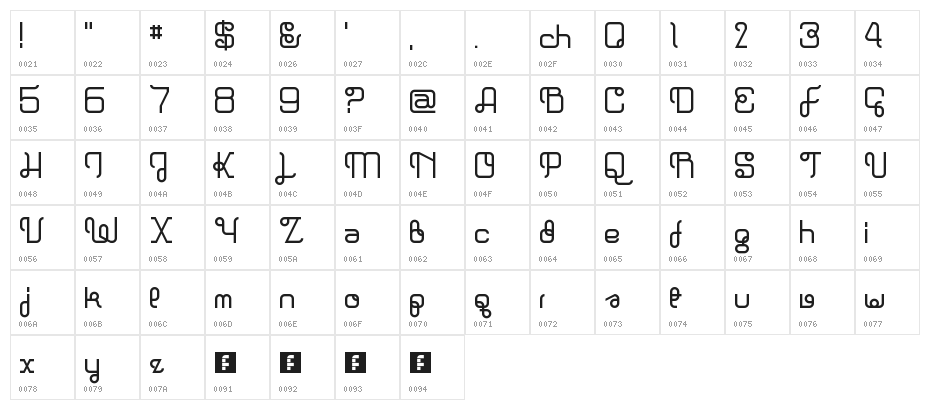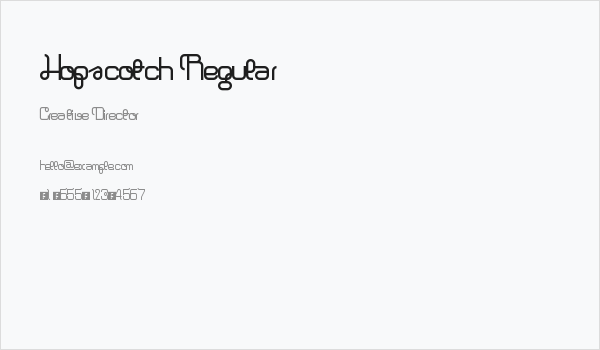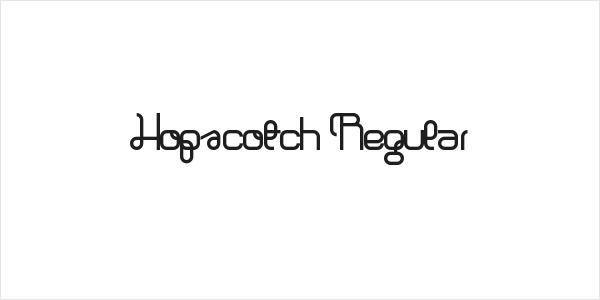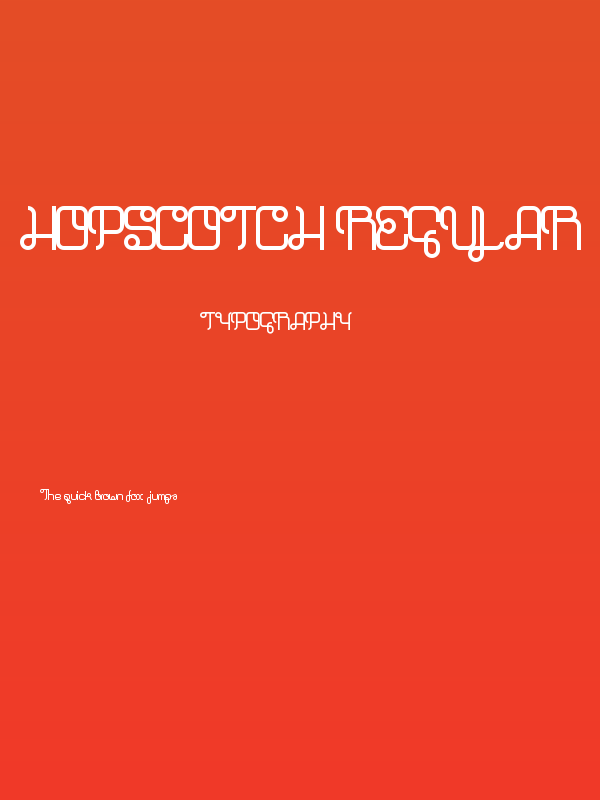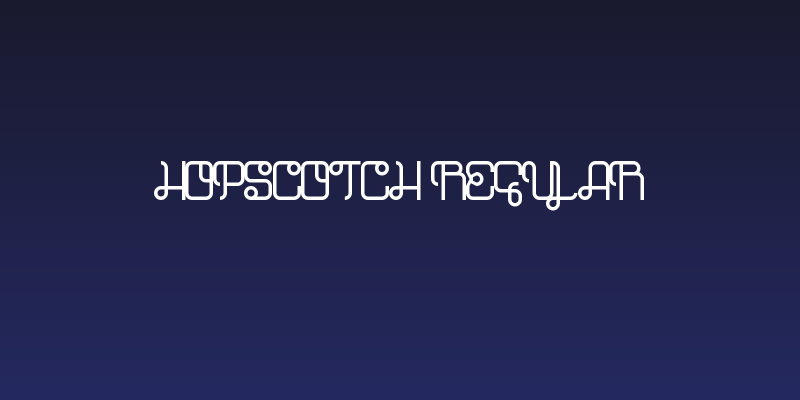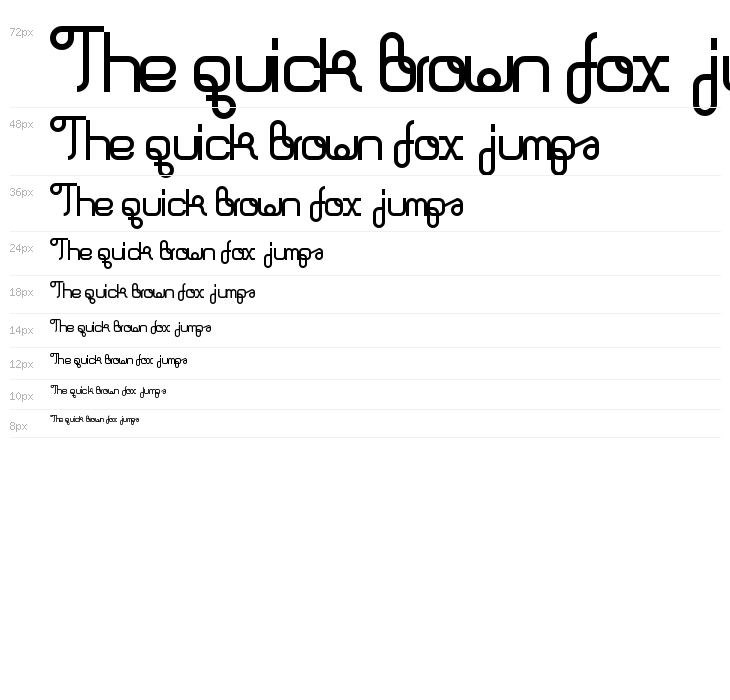
Hopscotch Regular Font
Hopscotch Regular Description
This font features a unique and playful design with a modern twist. The characters are composed of continuous loops and curves, giving it a whimsical and interconnected appearance. The uppercase letters are bold and structured, while the lowercase letters maintain a consistent flow with a slightly softer touch. Numbers and special characters follow the same playful style, ensuring uniformity across all elements. The overall design is both eye-catching and functional, making it suitable for creative and contemporary projects.
| Proposed Projects | Ideal for children's books, playful branding, creative posters, and modern art projects. |